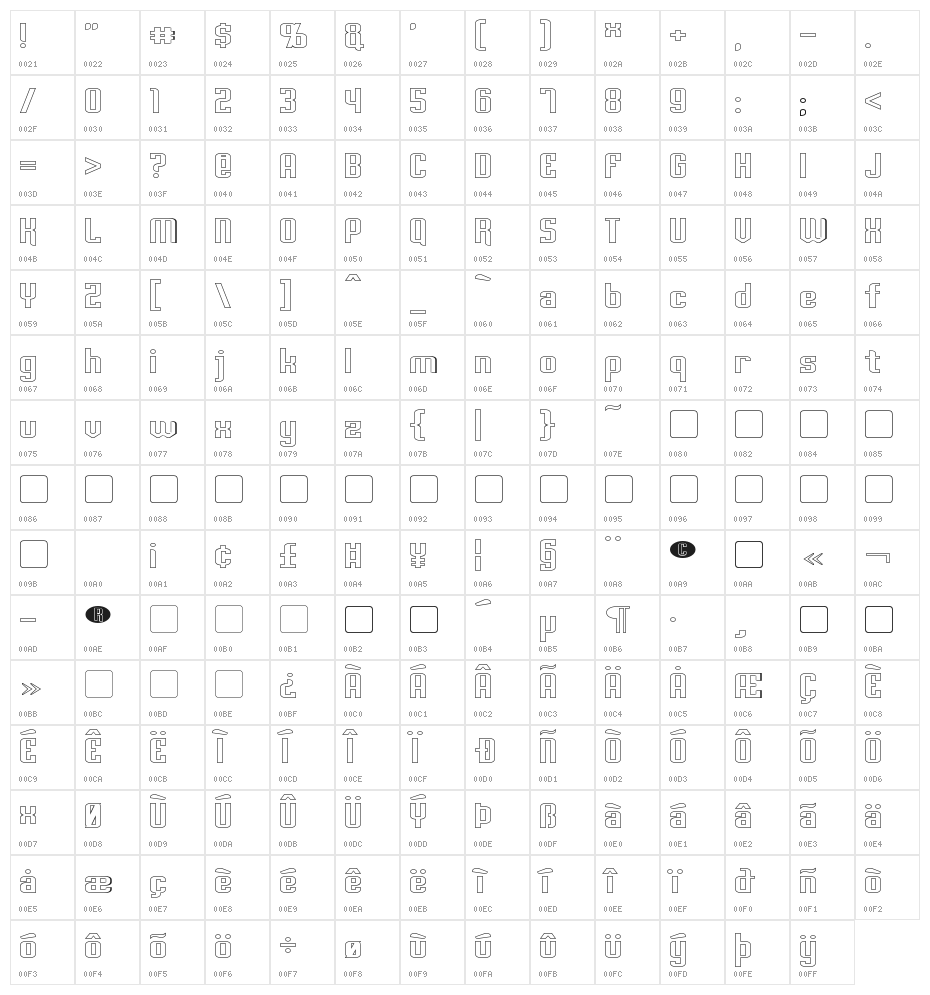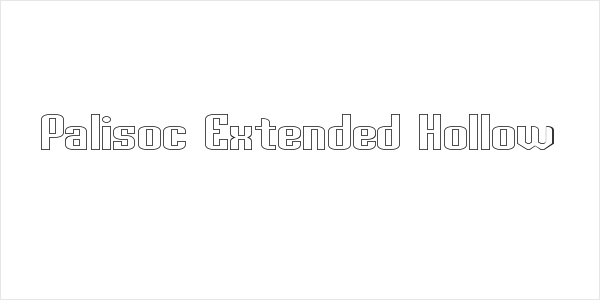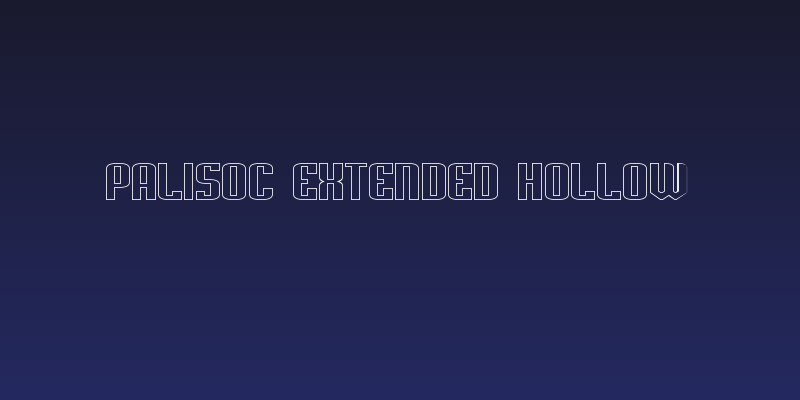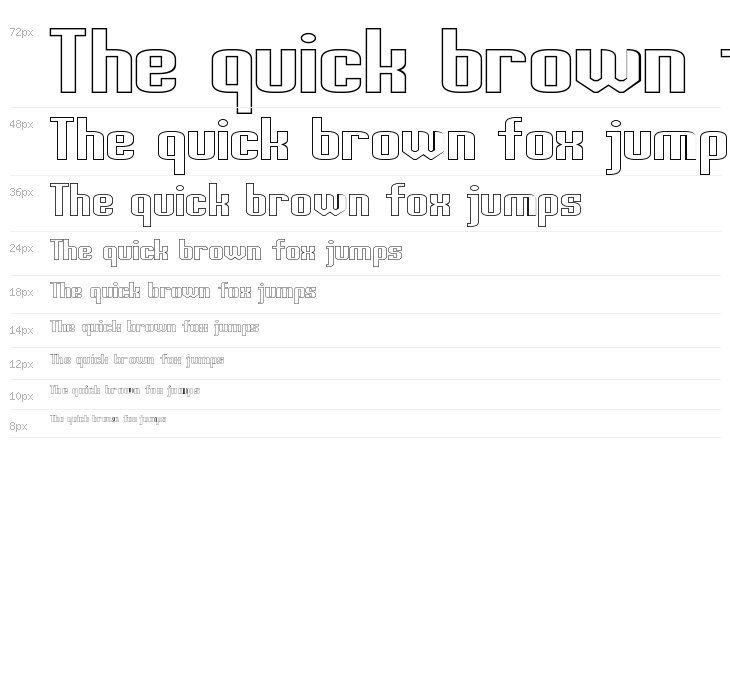
Palisoc Extended Hollow Font
Palisoc Extended Hollow Description
This font features a unique hollow design with an extended geometric structure. Each character is outlined, creating a striking visual effect that emphasizes its bold, modern style. The uppercase and lowercase letters maintain a consistent width, contributing to a uniform appearance. The numerals and special characters are designed with the same hollow effect, ensuring cohesiveness across all elements. This font's distinct look makes it ideal for projects that require a contemporary and eye-catching typeface.